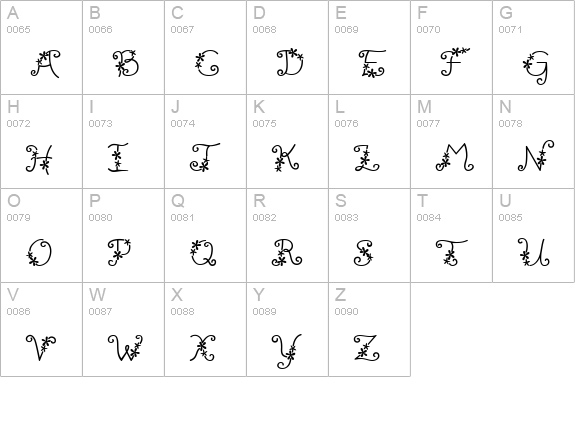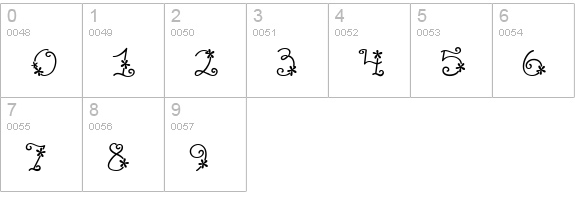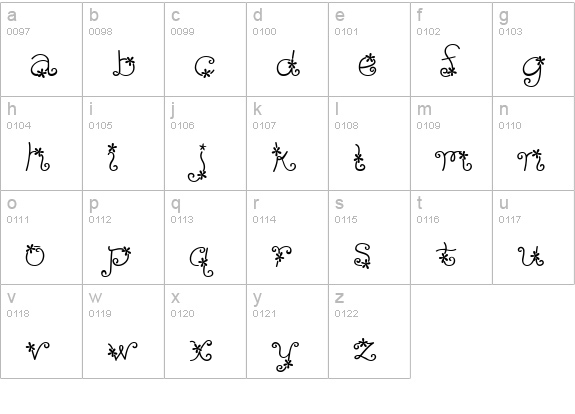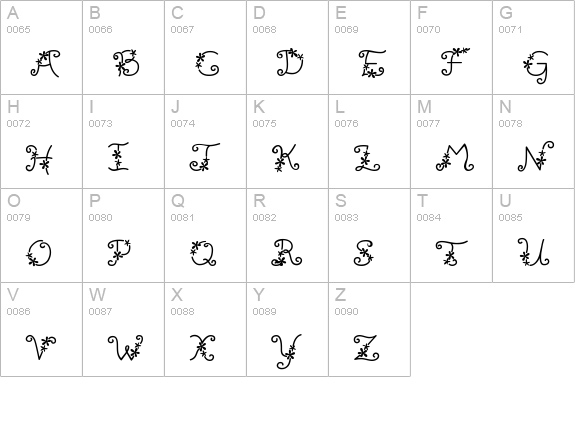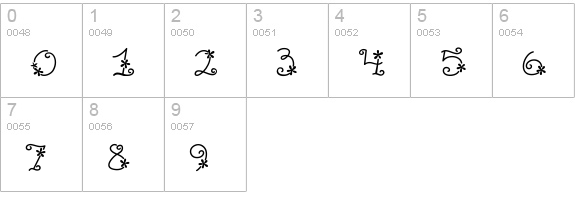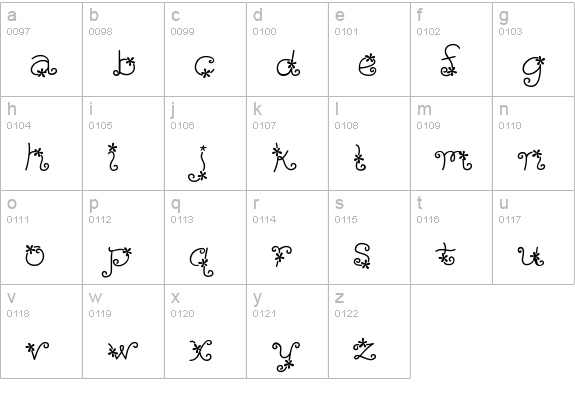
CK Flower Power Font Details
Introducing CK Flower Power font - a whimsical and playful typeface that exudes a fun and carefree vibe. This delightful font is perfect for adding a touch of charm to your designs, whether it's invitations, greeting cards, posters, or branding projects. With its unique floral-inspired elements and flowing lines, CK Flower Power font is sure to make your text stand out and capture attention. What's even better is that CK Flower Power font is available for free download at FontsMarket.com. So go ahead and add a splash of creativity to your projects with this lovely font, and let your imagination bloom!